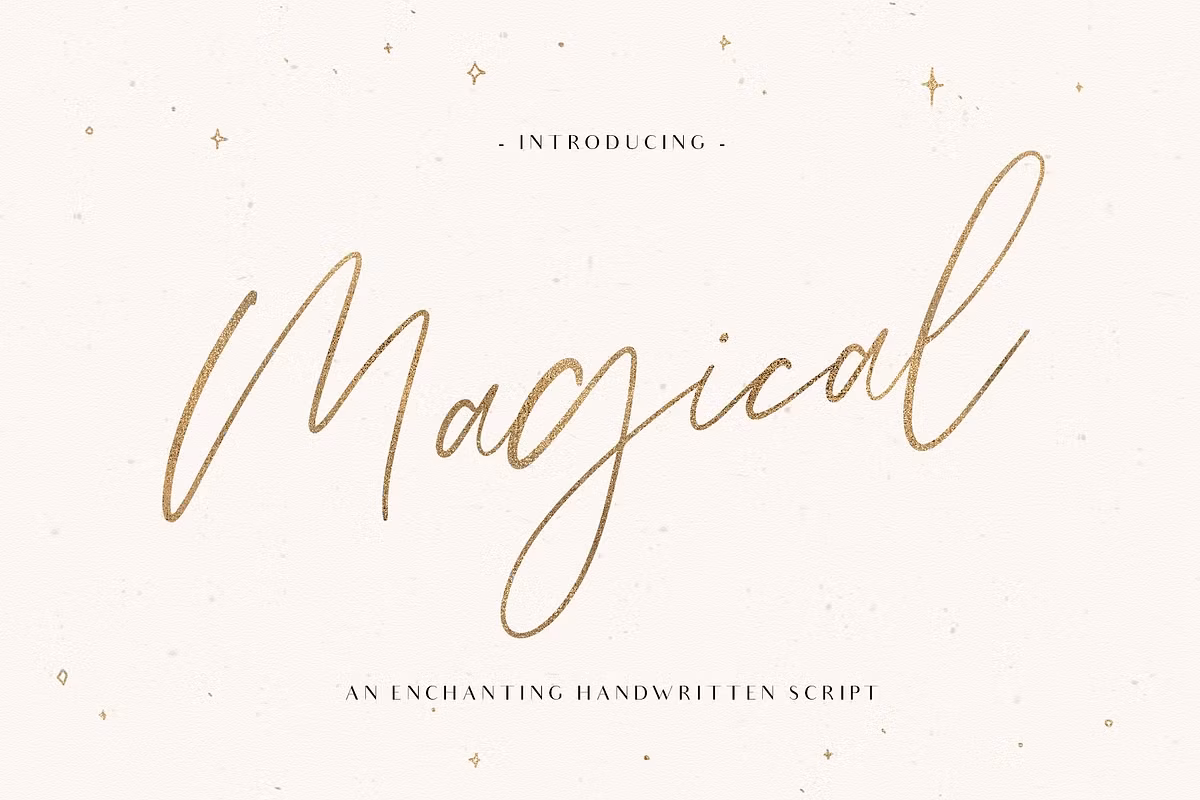
Magical Script Font Free Download
The Magical Script Font Free Download is a whimsical and elegant handwritten script typeface designed to evoke a sense of enchantment and creativity. Perfect for invitations, logos, greeting cards, branding, and any project that needs a touch of magic, this font brings a sophisticated yet playful feel to your designs.
With its smooth, flowing strokes and unique style, Magical Script adds an enchanting and personalized touch. It includes uppercase and lowercase letters, ligatures, punctuation, and multilingual support, making it versatile for a wide variety of creative projects.